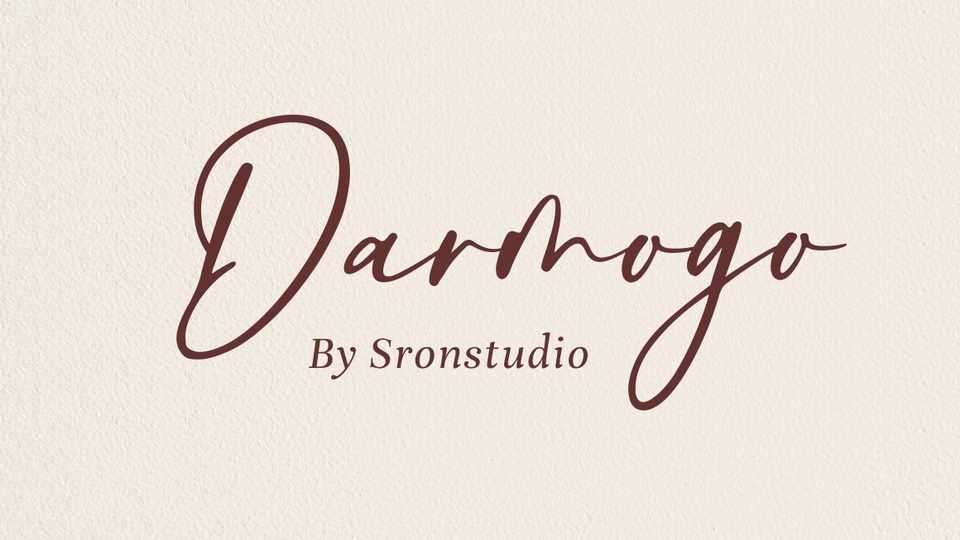
Download Darmogo font, a natural handwritten script. Darmogo is perfect for logo, invitation, stationery, wedding designs, social media posts, advertisements, product packaging or anything.
Designer: Sronstudio